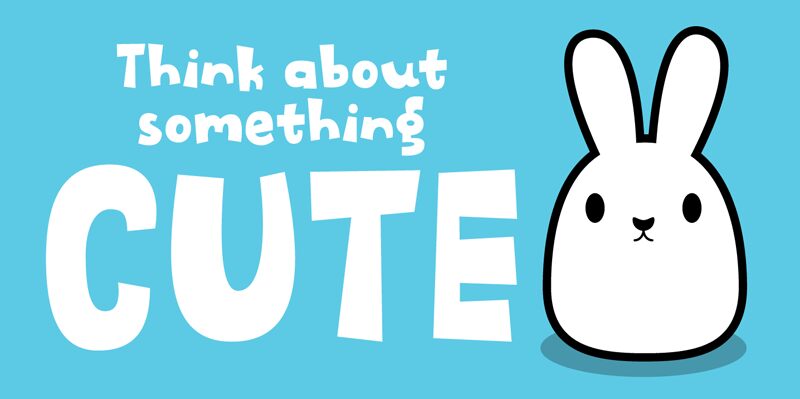
Empty Fridge is a delightful display font designed by the talented Pizzadude. With its extra-bold weight and comic style, this font is perfect for creating eye-catching headlines, posters, and logos that demand attention. Its playful and whimsical design will bring a touch of fun to children's books, food blogs, and even restaurant menus. Whether you're working on a party invitation or designing packaging for a quirky brand, Empty Fridge will add personality and charm to your projects. Let your creativity run wild with this lively typeface!